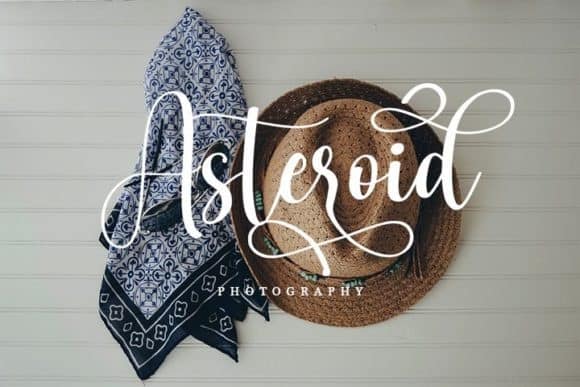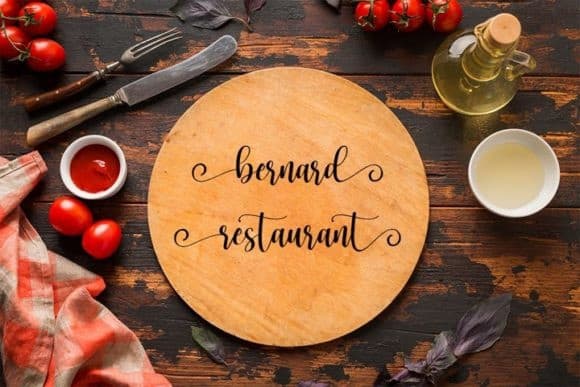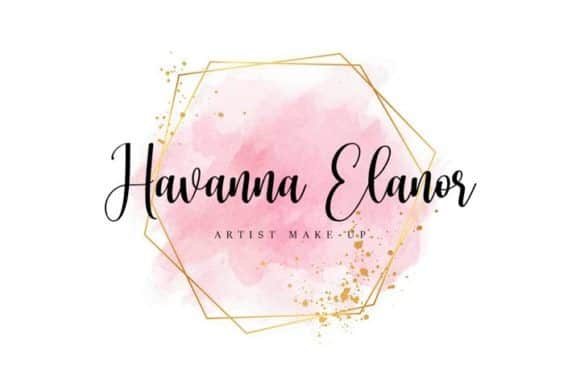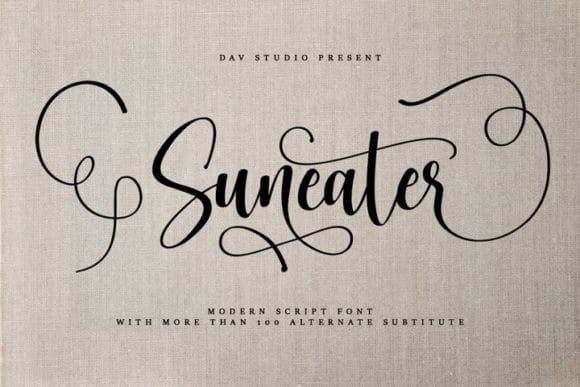
Suneater Calligraphy Font
Suneater Calligraphy Font with elegant and classy looks. This font will make your design look elegant, natural and stylish. It’s designed and shared by Dav studio. This typeface is a sweet and soft handwritten font with an authentic feel. It’s perfect for making gorgeous wedding invitations, lovely stationery art, great social media posts, and cute greeting cards. This font is PUA encoded which means you can access all of the glyphs and swashes with ease!